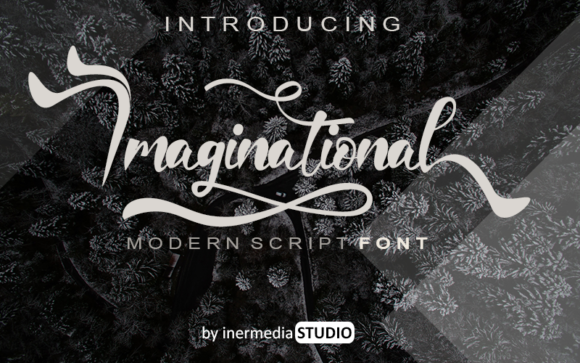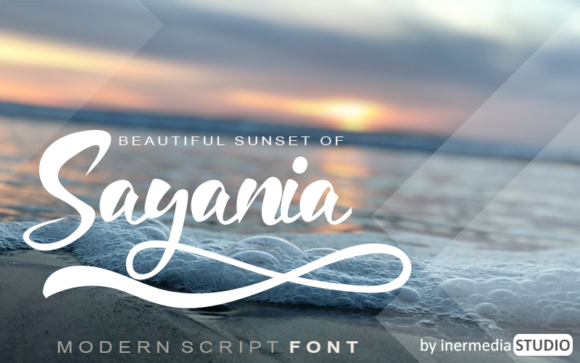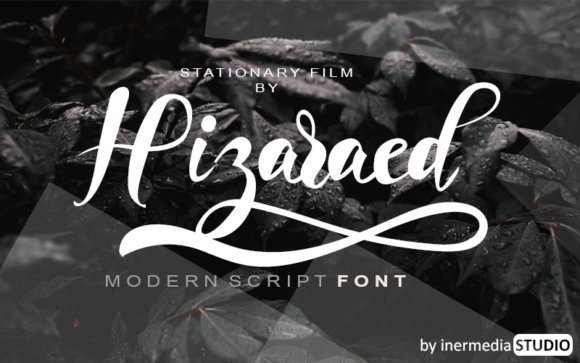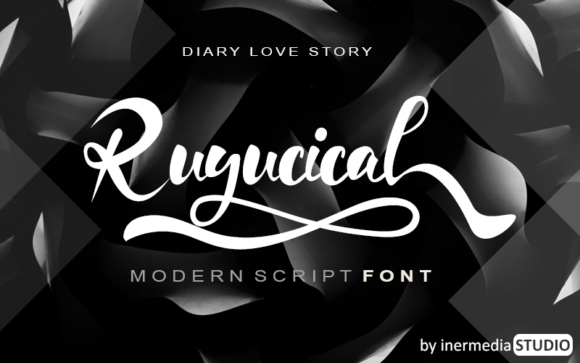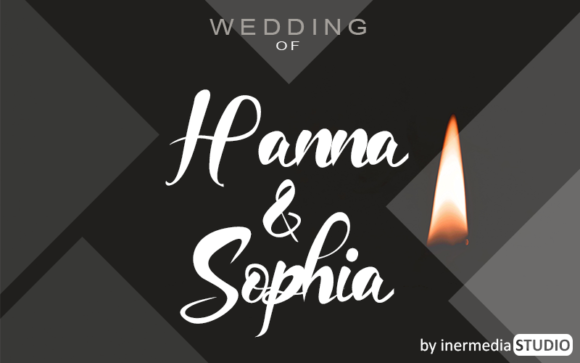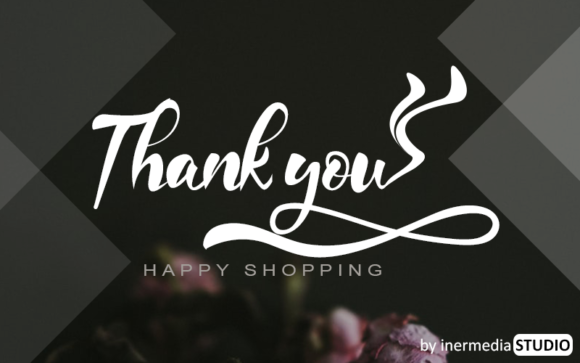
Imaginational Font
About Imaginational Font
Imaginational is a magical handwritten font carefully created with a touch of elegance. This font is the perfect fit for all of your logos, branding, social media, and crafty DIY projects.